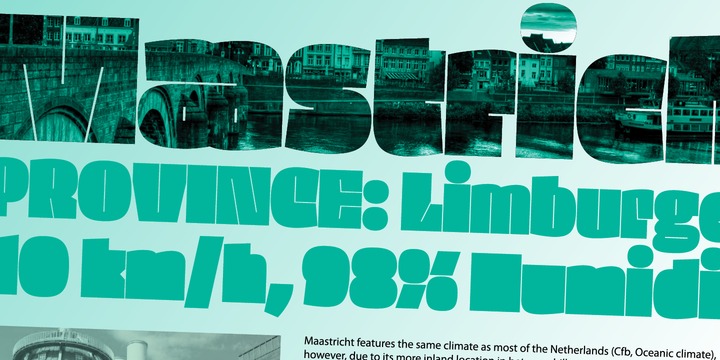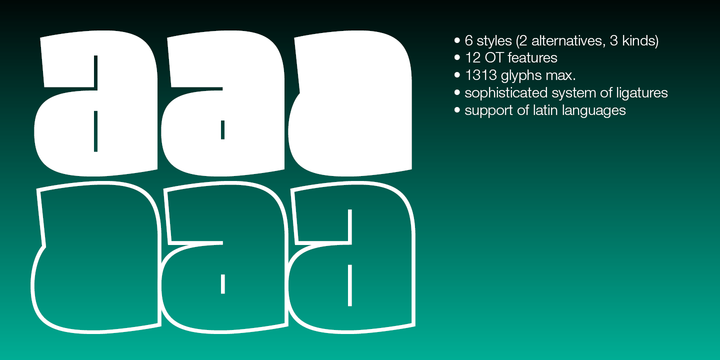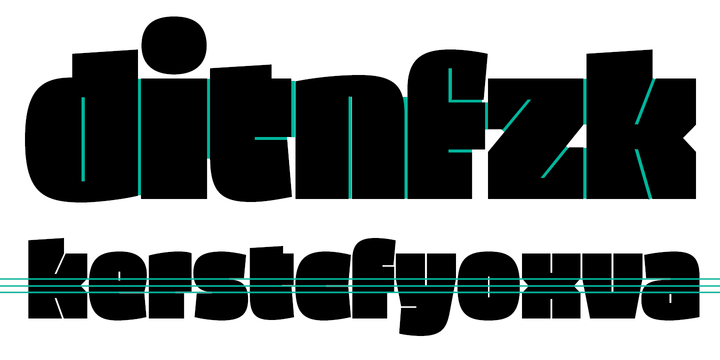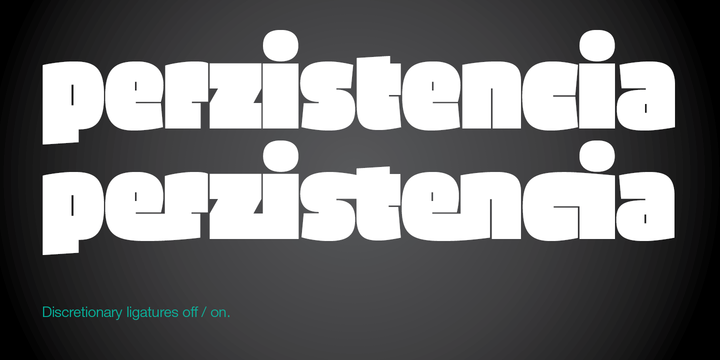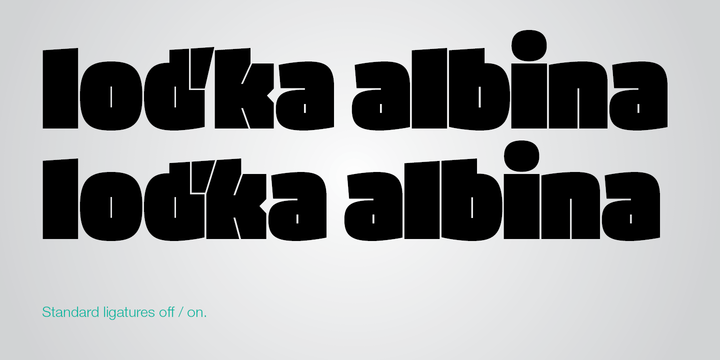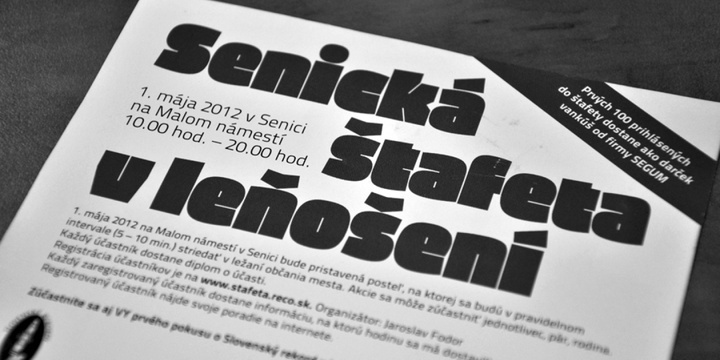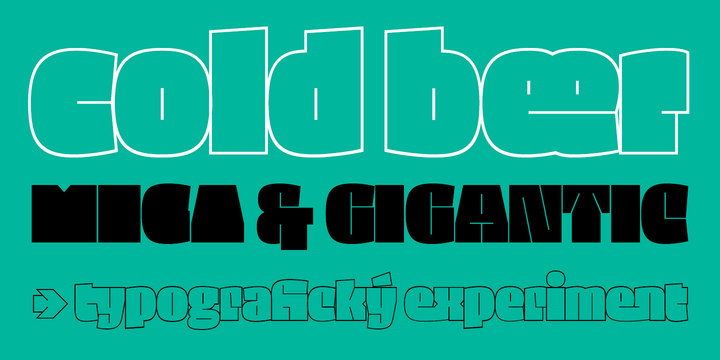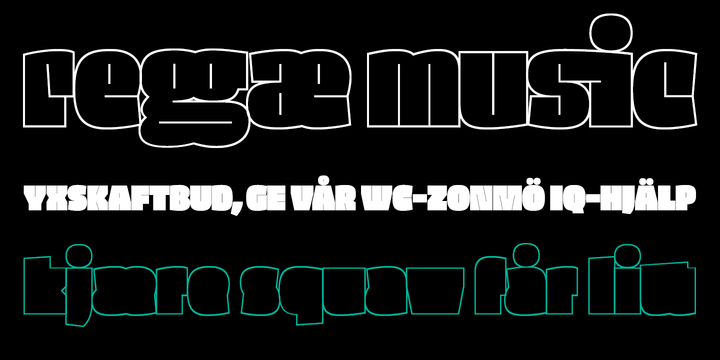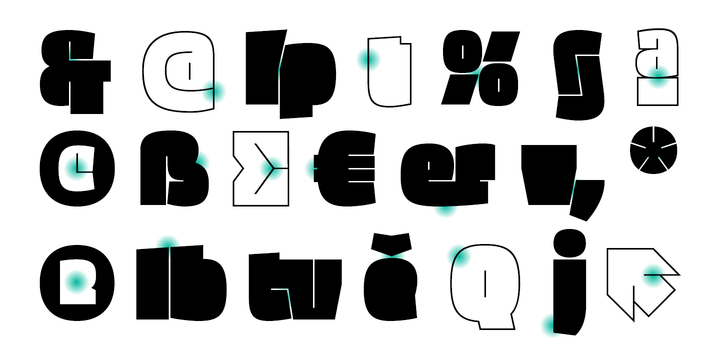
Densit Font Family
Densit is a display mega black typeface, containing 6 styles. It aims for a ultimate density with a maximum weight on a minimum place. Glyphs therefore balances on a slim border of touch. The typeface is designed for expressive and short texts at big sizes and is suitable for photography or other visual materials underlaying. The 3 basic styles parodies ordinary type styles. They only differents from each other lays in the lenght of straight thin lines. The stencil style without these lines is intended especially for spray stencils, the sans style is imitating linear sans types and the serif style having stronger contrast and indicated serifs. The typeface contains a large set of special ligatures for playing with aesthetic qualities of text and obtain maximum space saving. Densit contains 34 special forms for members and frequently used short words in various languages. Very short terminals offer compact setting of multi-lines captions. Densit can be used for music posters, eye-catching headlines of art articles and everything in which is possible graphic impression from legibility prefered. More…
Densit Air Stencil
Densit Fill Stencil
Densit Air Sans
Densit Fill Sans
Densit Air Serif
Densit Fill Serif